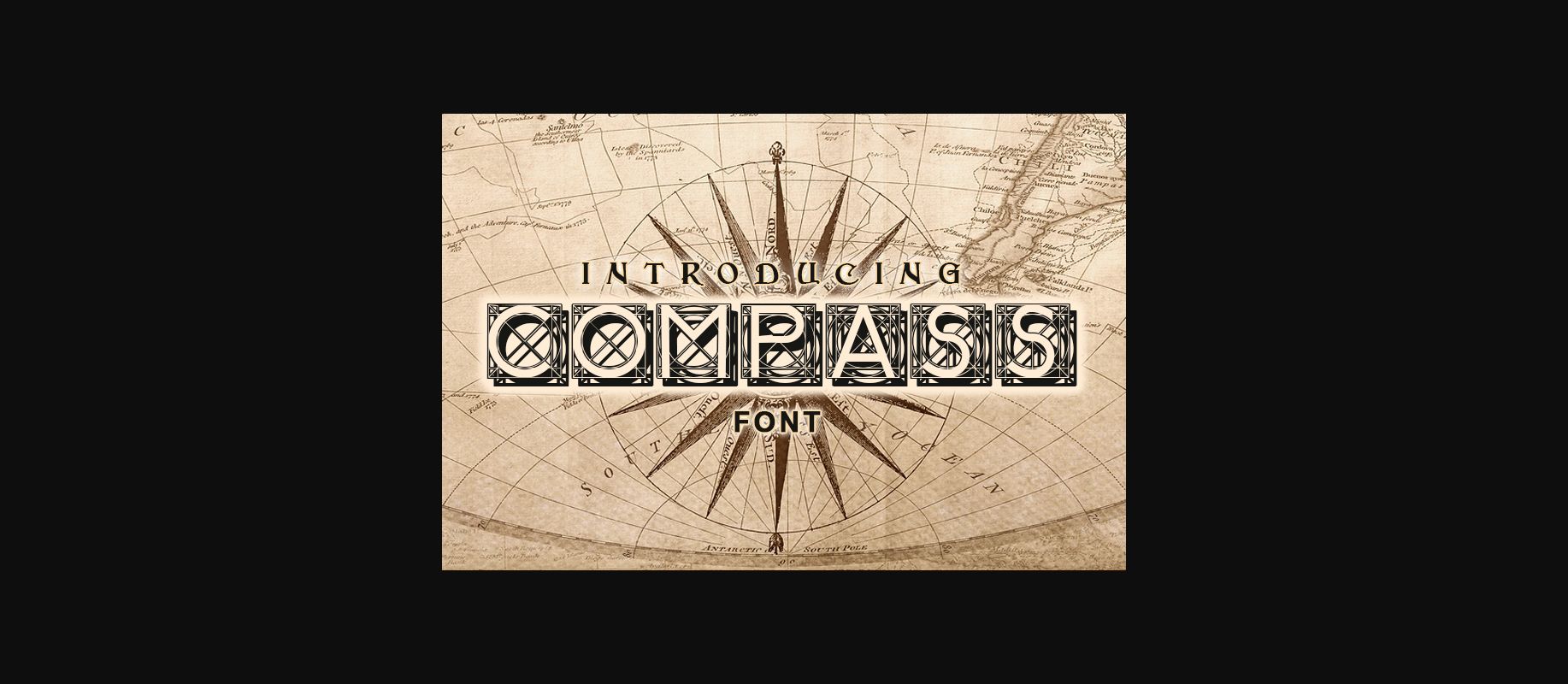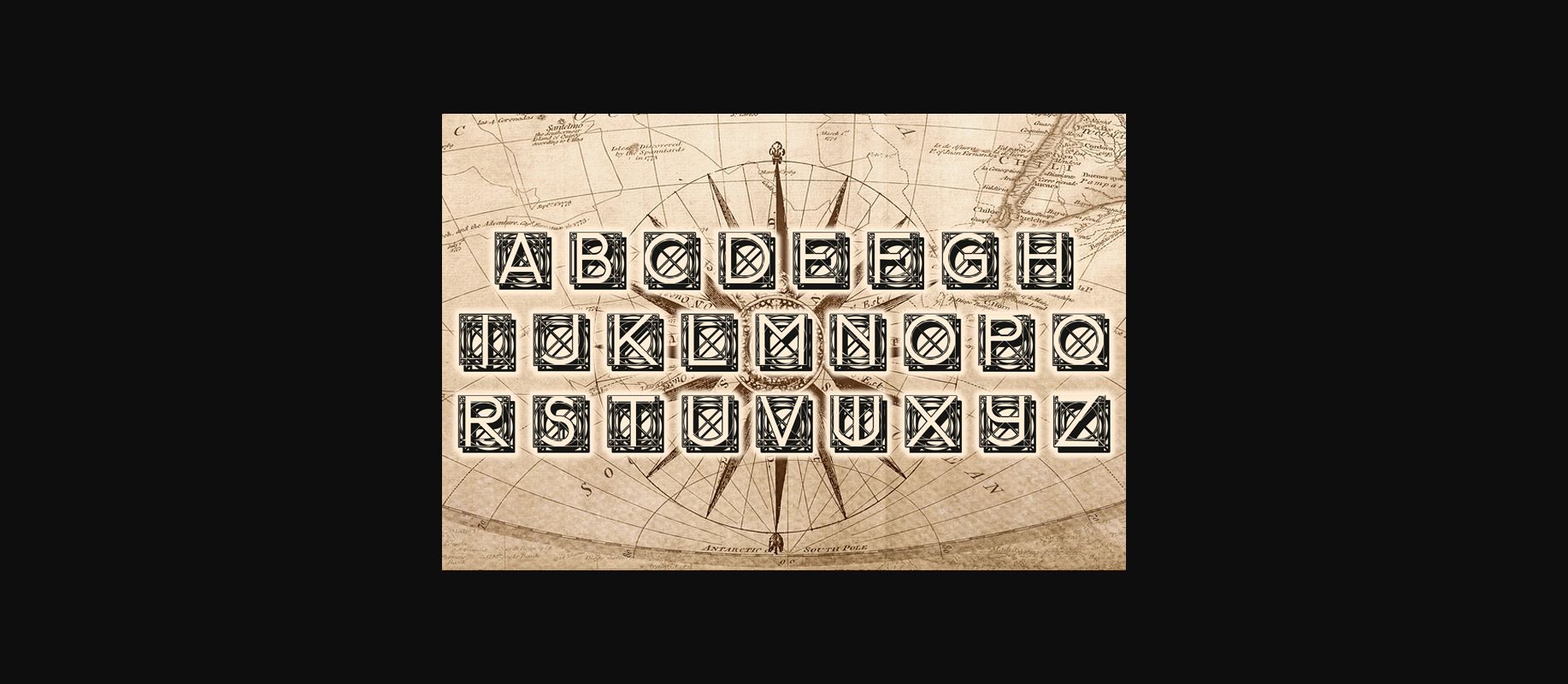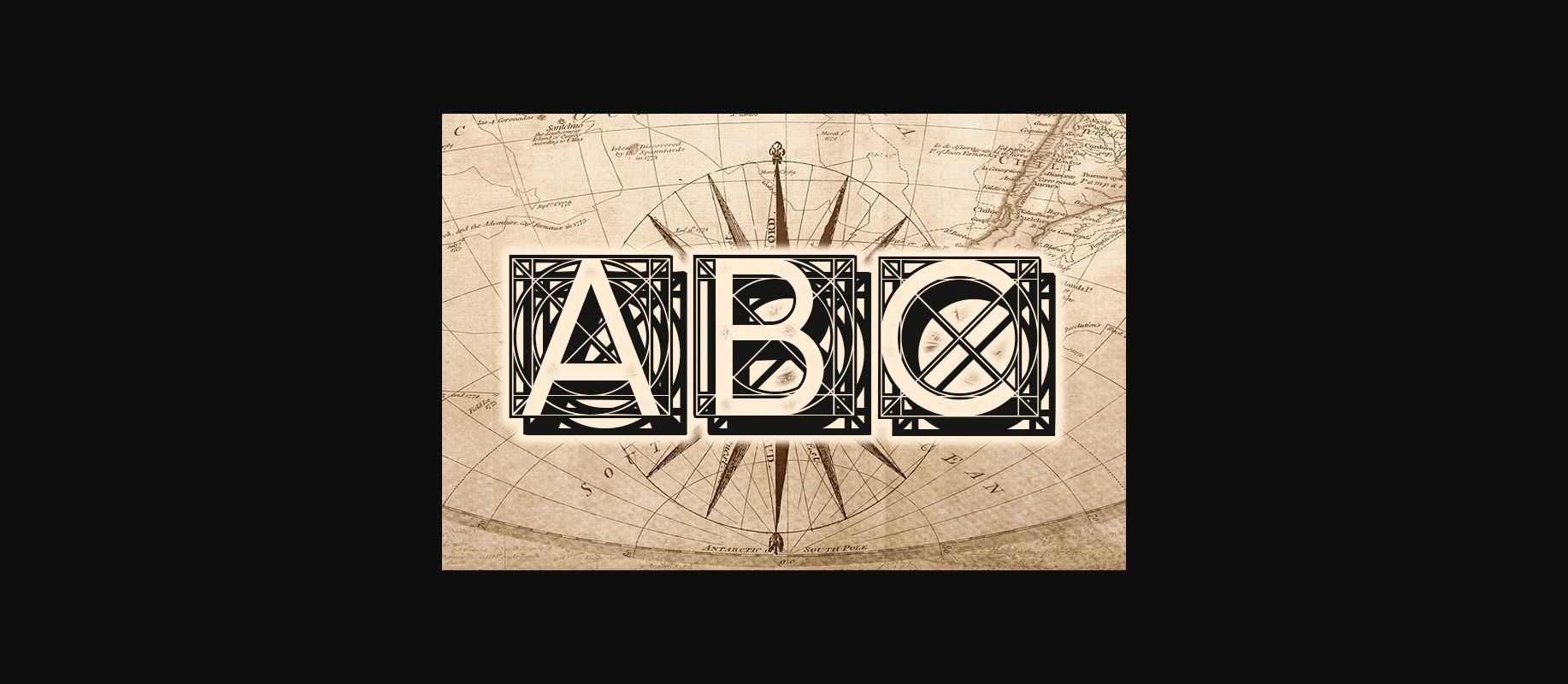
HomeDecorative FontsCompass Font Decorative Fonts Compass Font FacebookXPinterestWhatsApp 1 of 5 ... Compass Font Poster 2... Compass Font Poster 3... Compass Font Poster 4... Compass Font Poster 5... About Compass Font Compass is a cool and unique decorative font. Add it confidently to your projects and you will be amazed by the outcome generated! DOWNLOAD NOW People also explored Jungle Vine Font Belandia Font Star Big Font Romansta Beautya Font Hillary Font Almost Love Spotlight Extra Black Font Mireda Font Lettle Power Font 284 0 TagsCompassCompass Font Previous articleHello Gifts FontNext articlePath Font LEAVE A REPLY Cancel reply Comment: Please enter your comment! Name:* Please enter your name here Email:* You have entered an incorrect email address! Please enter your email address here Website: Save my name, email, and website in this browser for the next time I comment. Personal Use Free Trio Personal Use Free Read more about this font Love Story Personal Use Free Read more about this font Cline Personal Use Free Read more about this font Miss Love Personal Use Free Read more about this font BLOG How to Cut Any Font on Cricut: Convert a Font to SVG (Free) Turn any font into a clean SVG so it cuts crisp on Cricut - a quick 3-step workflow using a free font-to-SVG tool. Free vs Paid Fonts: Why Investing in Premium Fonts Is Worth It How to Install and Use Fonts on Windows, macOS, and Web Projects The 10 Best Handwriting Fonts to Add Personality to Your Designs